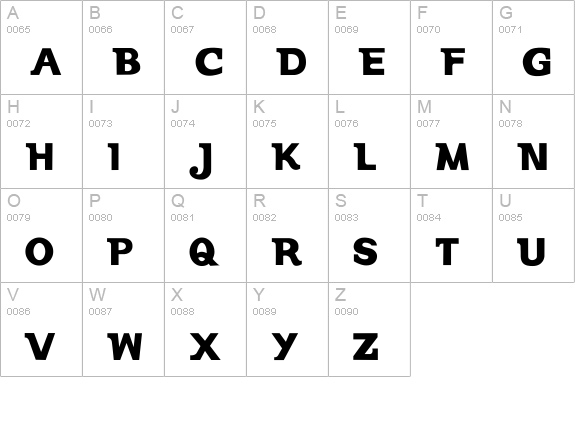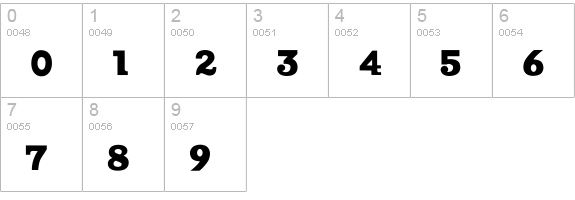
Vintage Font Details
The Vintage font exudes timeless charm and nostalgic appeal with its elegant and classic design. This font captures the essence of old-world sophistication, making it perfect for adding a touch of vintage flair to any project. Its intricate details and graceful curves evoke a sense of craftsmanship and history, making it a versatile choice for a wide range of design applications. And the best part? The Vintage font is available for free download at FontsMarket.com, allowing you to easily access this stunning typeface and incorporate its vintage charm into your creations without any cost. Whether you're working on a retro-inspired branding project, vintage-themed invitation, or classic poster design, the Vintage font is sure to elevate your work with its distinctive aesthetic and timeless appeal. Download it today and add a touch of vintage elegance to your designs!